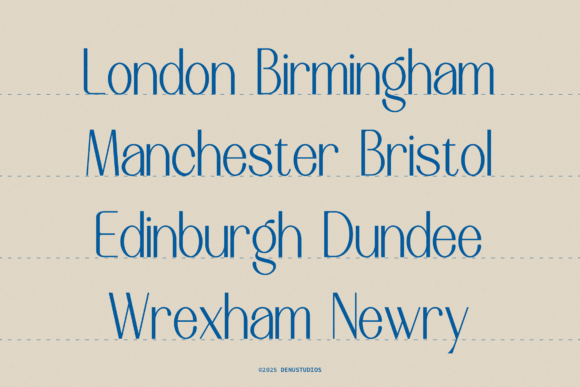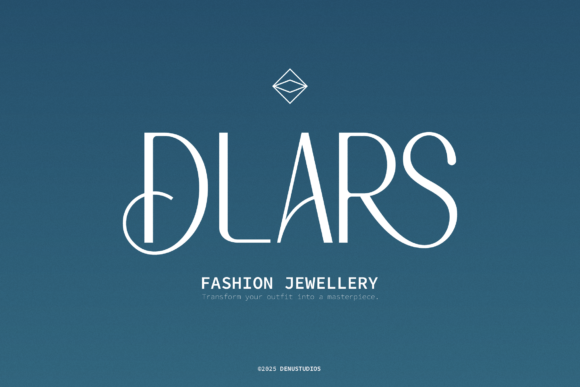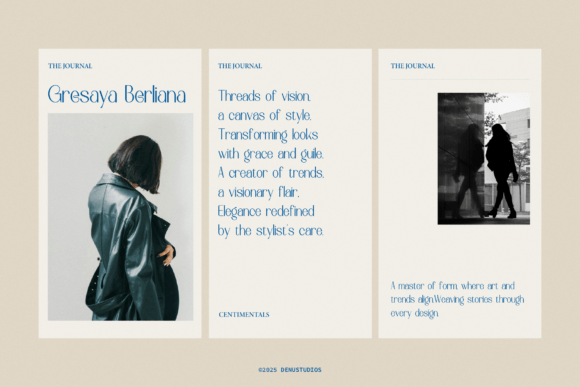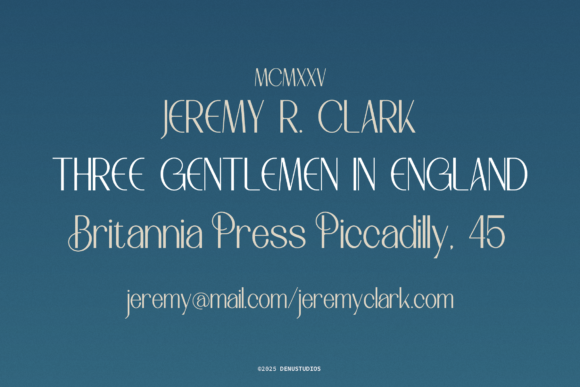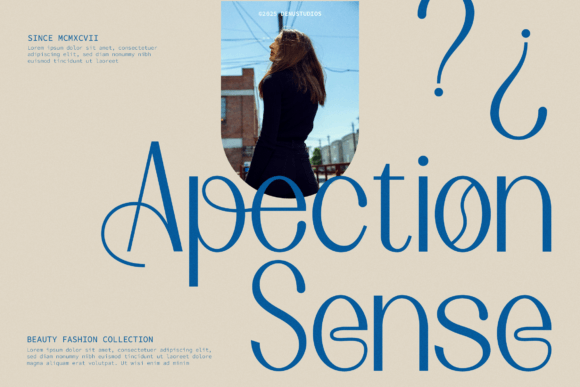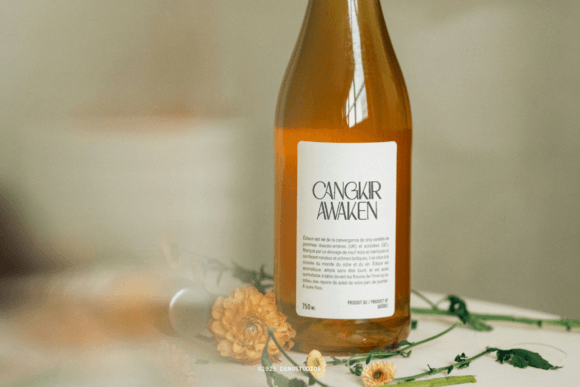
I still remember the frustration of working on a project, hours spent perfecting every detail, only to be stumped by one thing: the font. My client wanted something modern, stylish, and eye-catching, but I just couldn’t seem to find the right fit. That was until I stumbled upon Brigebe, a stunning sans serif font from Denustudios. In this article, I’ll share my experience with Brigebe, its features, and how to make the most of it in your designs.
First Impressions: What I Love About Brigebe
Brigebe is a game-changer for designers, crafters, and creative hobbyists looking for a stylish and modern sans serif font. Here are some of the things I love about it:
• ✨ Clean and minimalist design: Brigebe’s sleek lines and simple shapes make it perfect for a wide range of projects, from logos to posters.
• ✅ Highly versatile: This font is suitable for any project that needs a modern sans serif touch, including branding, packaging, and more.
• 💡 Excellent legibility: Brigebe’s clear and concise design ensures that your text is easy to read, even at small sizes.
The Not-So-Perfect: Small Quirks and Limitations
While Brigebe is an excellent font, it’s not without its quirks. Here are a few things to keep in mind:
• 🤔 Limited italic options: Brigebe’s italic styles are limited, which might be a drawback for some designers.
• ⚠️ Not suitable for body text: Due to its modern and stylized design, Brigebe is best used for headlines, titles, and short paragraphs.
The Story Behind Brigebe
Brigebe was designed by Denustudios, a team of creative designers who aim to create unique and functional fonts for modern designers. The font was inspired by the need for a clean, modern sans serif font that’s perfect for a wide range of projects.
What type of projects is Brigebe suitable for? Brigebe is suitable for a wide range of projects, including logos, branding, packaging, posters, and more.